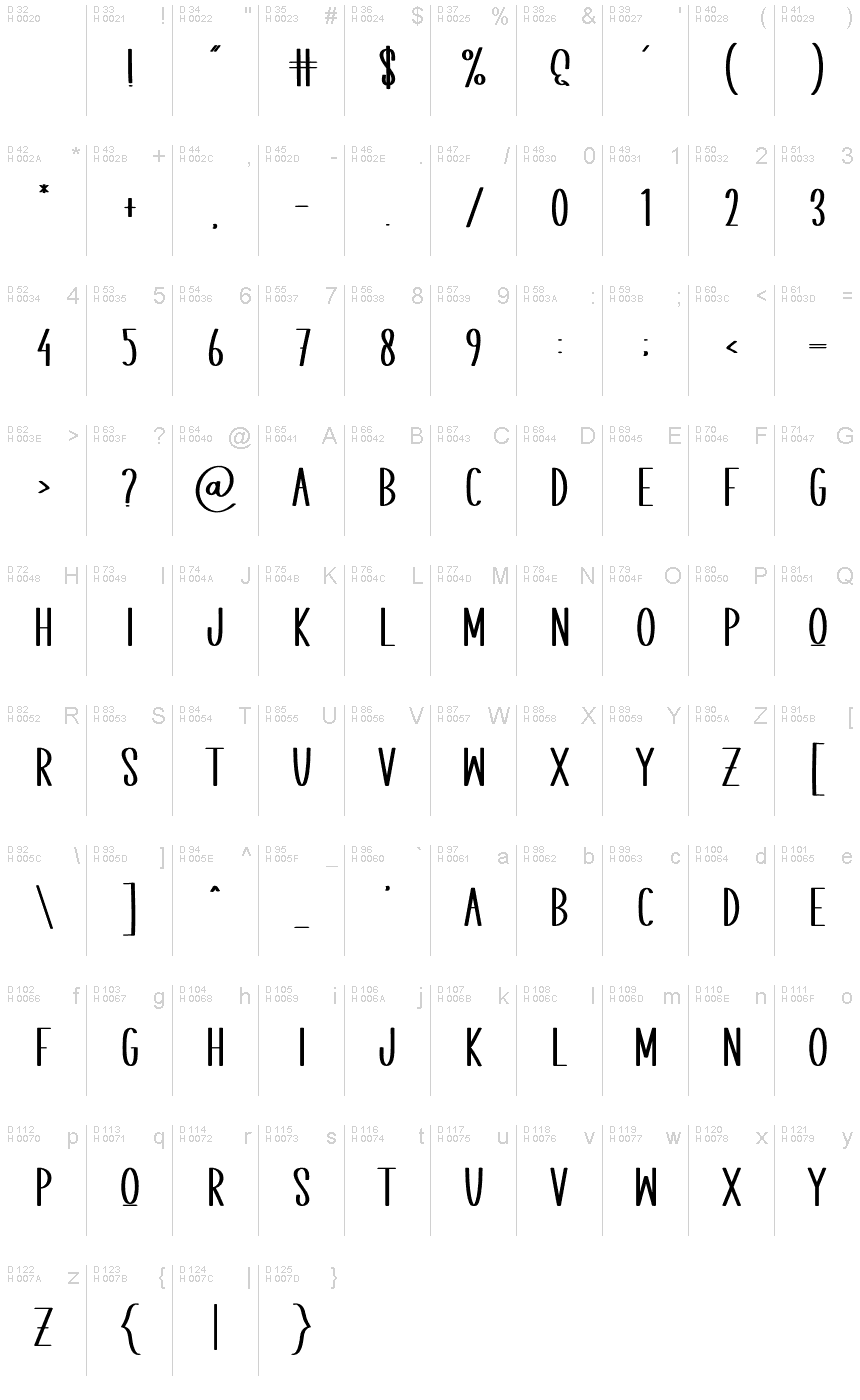
Popcorn
Popcorn by Scratchones is a delightful handwritten font that captures the essence of spontaneity and charm. Its semi-light weight gives it a graceful, airy feel, while the extra-condensed width ensures that it retains a sleek and stylish profile. The handwritten style of Popcorn adds a personal touch to any project, making text appear as though it were effortlessly scribed with a fluid, confident hand.
This font's playful yet legible appearance makes it an excellent choice for creative endeavors that require a touch of individuality without sacrificing readability. From whimsical book covers to unique branding materials, Popcorn is versatile enough to enhance the visual narrative of various mediums. Its informal elegance is particularly well-suited for invitations, greeting cards, and boutique packaging where personality is key.
Embrace the distinct flair of Popcorn and let your designs pop with its authentic handwritten appeal.